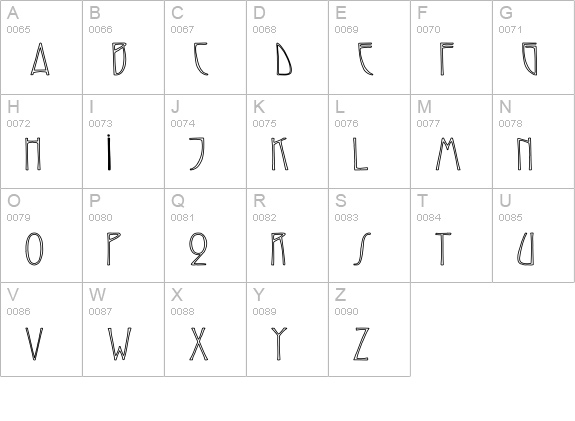
Introducing ReynoldCaps Hollow, a mesmerizing font that effortlessly combines elegance and sophistication with a touch of quirkiness. This unique typeface is a true testament to the art of typography, capturing attention with its hollow letterforms and captivating curves. ReynoldCaps Hollow is a versatile font that can be used for a variety of design projects. Whether you're creating eye-catching logos, stunning headlines, or adding a touch of flair to your social media posts, this font is sure to make a lasting impression. What sets ReynoldCaps Hollow apart is not only its stunning aesthetic, but also its accessibility. This font is available to download for free at FontsMarket.com, making it a valuable asset for both professional designers and enthusiasts alike. With just a few clicks, you can bring this font to life and add a touch of creativity to your designs. The hollow letterforms of ReynoldCaps Hollow create a sense of depth and dimension, making each character appear as if it's floating effortlessly on the page. This unique style adds an element of intrigue, drawing the viewer in and leaving a lasting impression. The generous spacing and smooth curves of ReynoldCaps Hollow contribute to its overall elegance, making it a perfect choice for projects that require a touch of sophistication. Whether you're designing wedding invitations, creating stylish branding materials, or crafting a memorable website, this font is sure to elevate your work to new heights. ReynoldCaps Hollow is not just a font; it's a statement. It's a bold and confident choice that speaks volumes about your creativity and attention to detail. So why settle for ordinary when you can make a statement with ReynoldCaps Hollow? Download this incredible font for free at FontsMarket.com and unleash your creativity today. With ReynoldCaps Hollow, the possibilities are endless, and your designs will never be the same again.